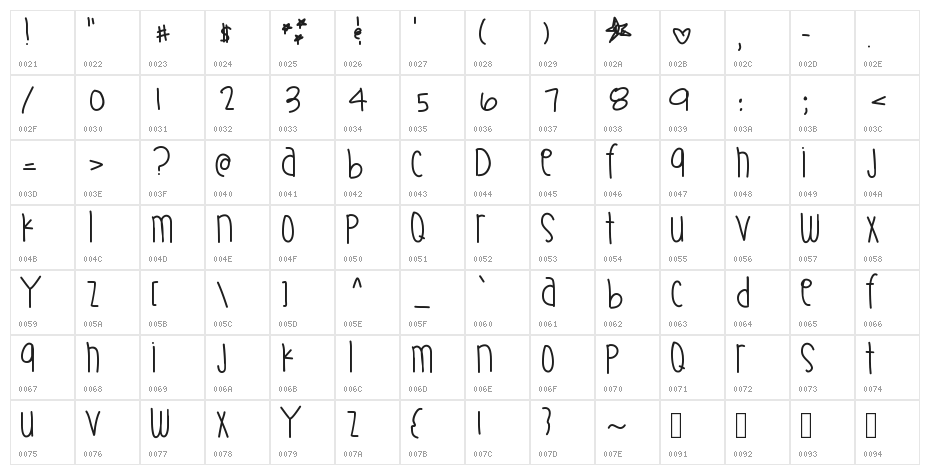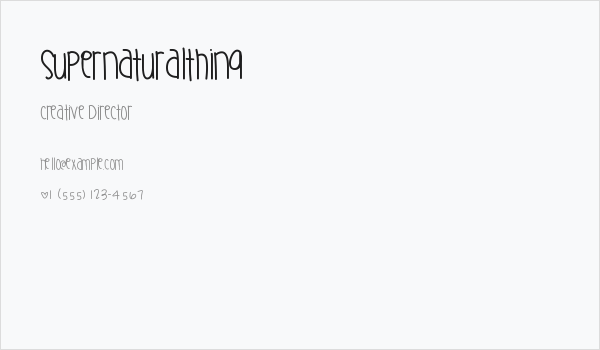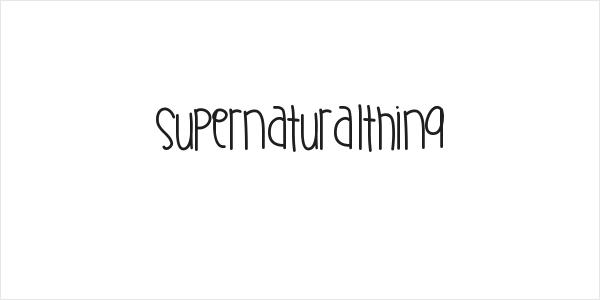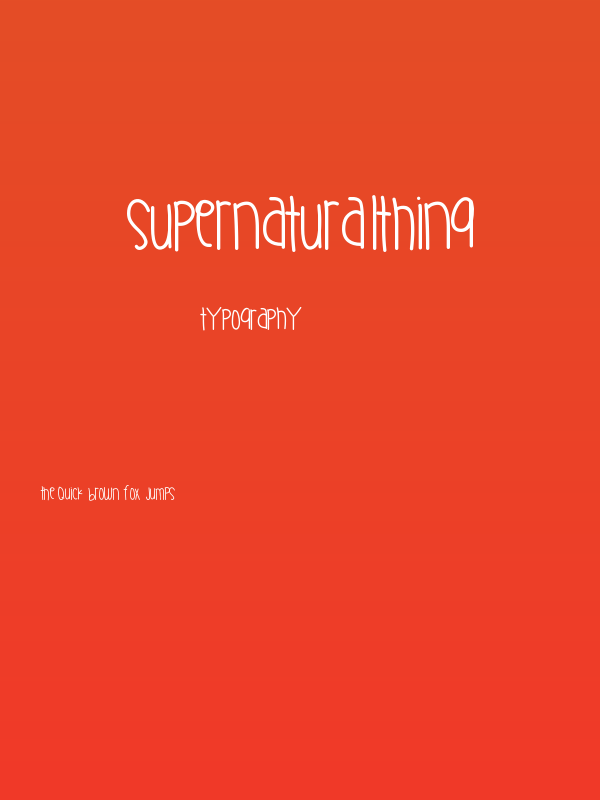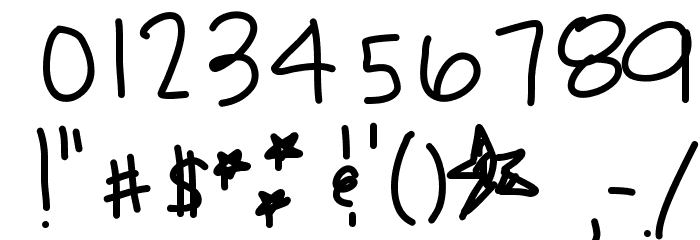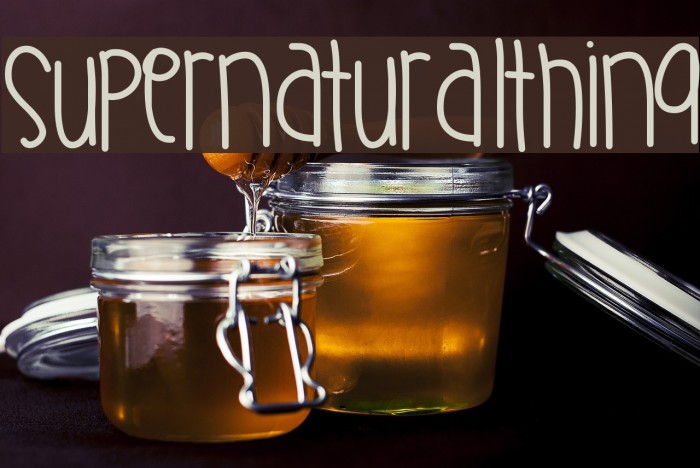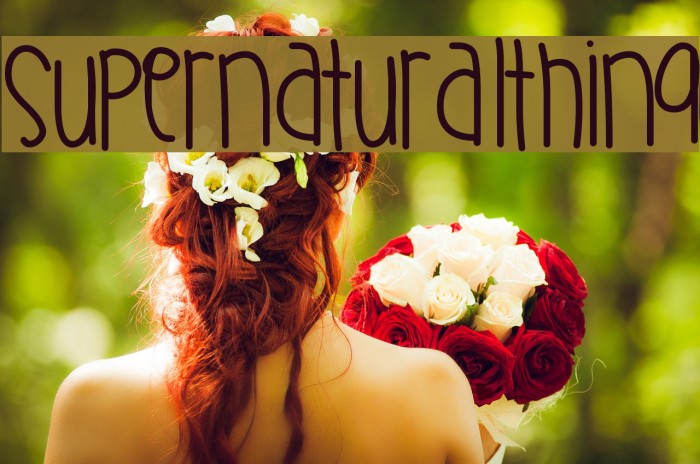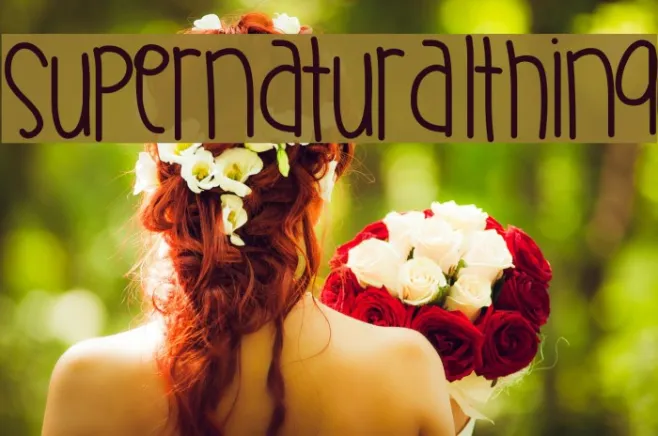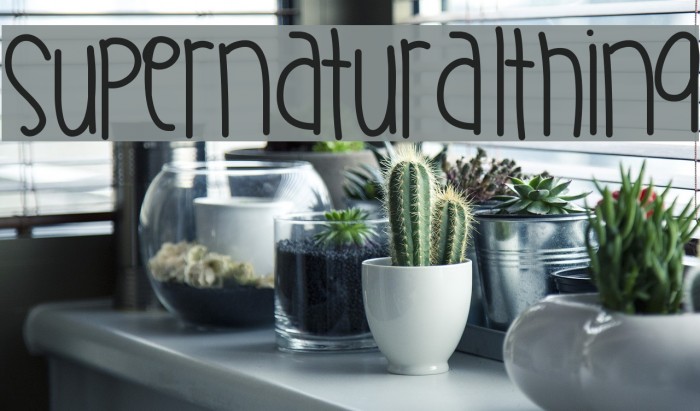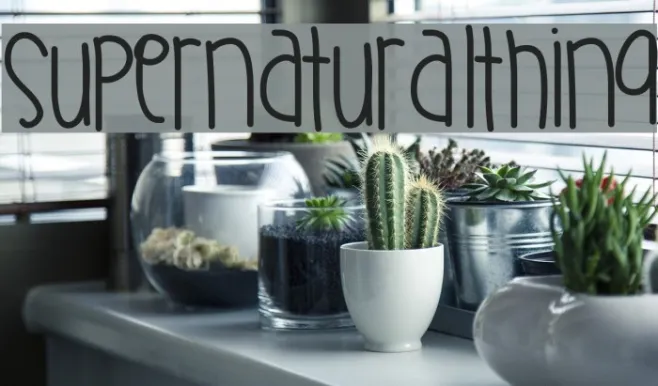
SupernaturalThing Font
SupernaturalThing Description
This playful and whimsical font features a handwritten style with tall, narrow letters. The characters are slightly irregular, giving it a casual and friendly appearance. The strokes are consistent in width, providing a uniform look across all characters. The font includes both uppercase and lowercase letters, numbers, and a variety of special characters. Its informal style makes it suitable for creative projects that require a personal touch.
| Use Case | Logos, Invitations, Creative projects |
| Proposed Projects | Ideal for greeting cards, children's books, playful branding, and casual invitations. |